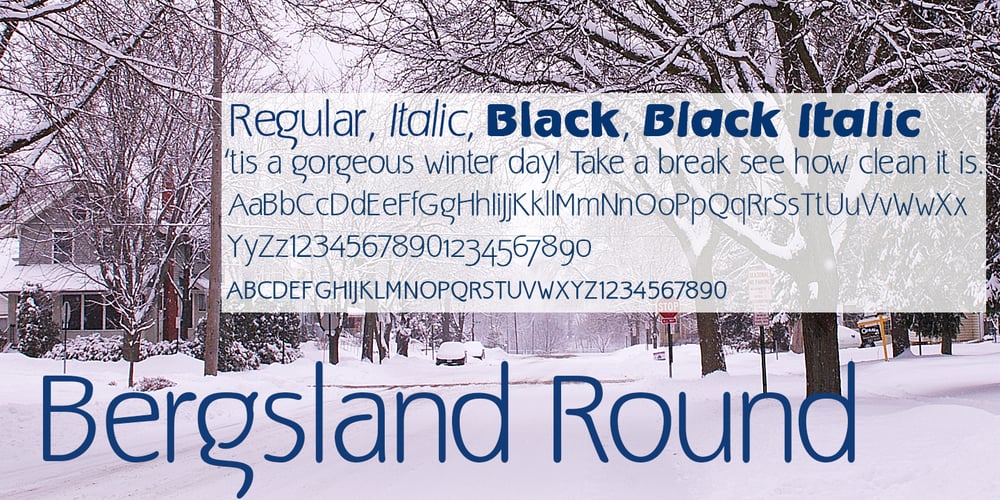
Bergsland Round
Bergsland Round font
Bergsland Round Font Family was designed by David Bergsland and published by Hackberry Font Foundry. Bergsland Round contains 4 styles and family package options. This is a version of the Bergsland Fashion stylized sans serif font family that is very high-waisted and sleek with rounded terminals called Bergsland Round. Round is my favorite out of the group as it is looser and friendlier. This four-font set has a Regular and a Black plus the italics. The stroke is only slightly modulated. The letterforms are higher, with a more open aperture, and sprinkled with breaks to add light and sparkle. This an attempt at a readable sans serif for text. It has many OpenType features and 465 characters per font: Caps, lower case, small caps, old style figures, numerators, denominators, accents characters and so on.